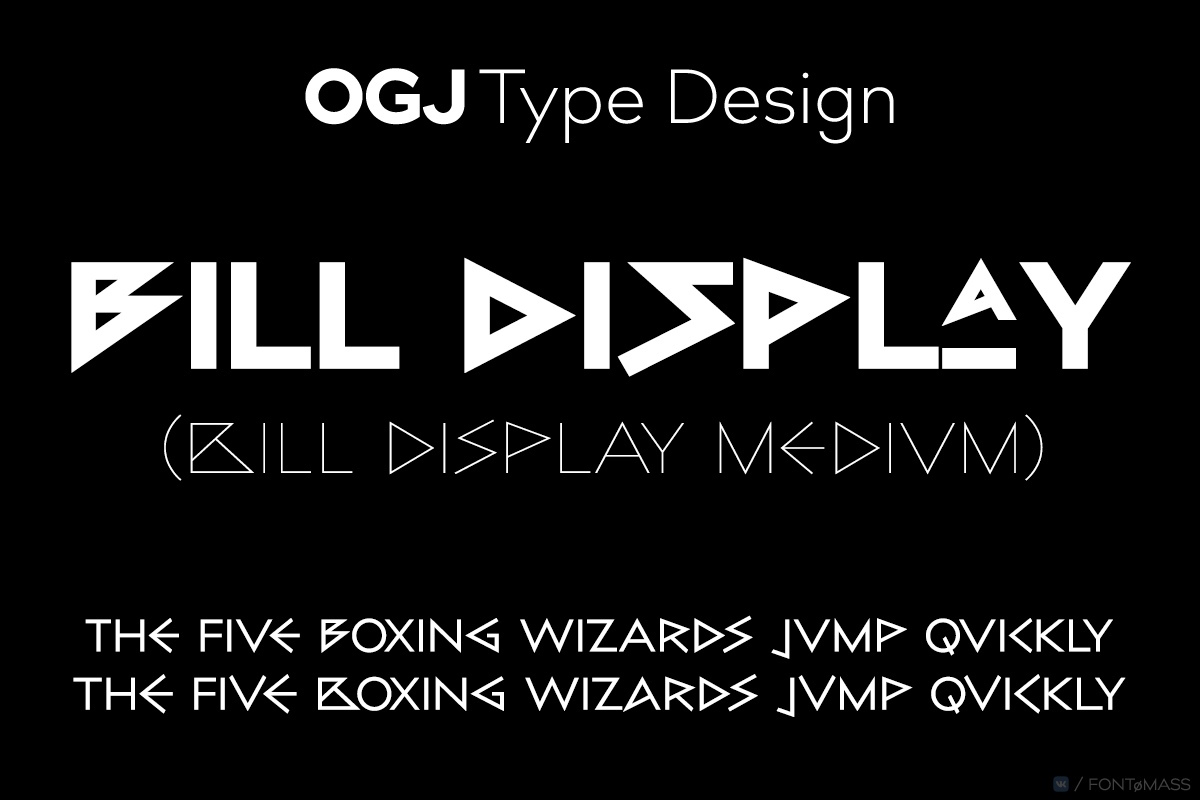
Bill Display Medium Font
Bill Display Medium Font is perfect for corporate headline designs, professional presentation titles, business report headers, financial document layouts, executive communication materials, company annual reports, large-scale signage systems, conference banner designs, institutional displays, and commanding marketing headlines.
What makes Bill Display Medium Font so exciting is its exceptional ability to command attention and communicate authority through perfectly balanced letterforms that deliver maximum impact while maintaining professional credibility and readable clarity. This commanding typeface represents the ideal fusion of display power and medium weight functionality, featuring characters that seem engineered for executive-level communications and high-stakes business presentations. The font's authoritative design elements perfectly balance visual impact with professional restraint, creating an indispensable tool that communicates corporate leadership, business authority, and executive presence, making it essential for organizations that need to project commanding presence while maintaining sophisticated professionalism.
Bill Display Medium Font comes in multiple font families including Regular, Bold, Light, Italic, Bold Italic, Executive, Corporate, and Display variations. Each family member maintains the core commanding characteristics while offering different authority levels and stylistic approaches to suit various professional display and corporate communication requirements.
The executive precision in Bill Display Medium Font makes it particularly effective for Fortune 500 companies and executive-level communications where conveying corporate authority and business leadership is crucial for maintaining market credibility and stakeholder confidence. Its commanding letterforms work exceptionally well across all high-level business applications, from boardroom presentations to corporate headquarters signage, maintaining consistent executive impact and professional authority.
Corporate communication professionals recognize how Bill Display Medium Font transforms ordinary business headlines into powerful declarations of corporate leadership and executive excellence. The typeface's authoritative character set includes comprehensive business symbols, executive punctuation, and professional features that accommodate complex corporate requirements and high-level business communication standards.
For creative professionals serving multinational corporations, executive leadership teams, and high-level business organizations, Bill Display Medium Font serves as the ultimate foundation for creating memorable corporate experiences that capture the essential qualities of business authority, executive presence, and corporate excellence that define successful organizations commanding respect and market leadership in competitive global business environments where executive credibility determines success.